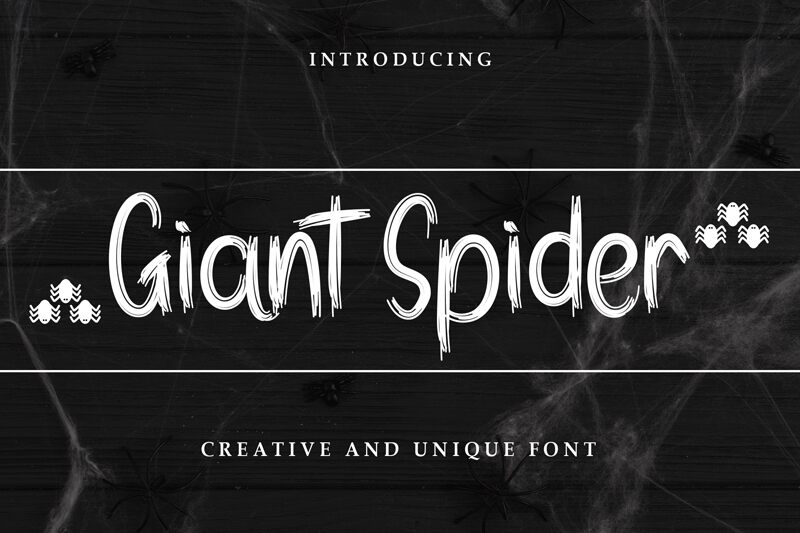
Giant Spider font by Andi Moz brings nightmares to reality with scary letters with imperfections in the form of curves and subtle angled corners. The condensed display font is creepy to its core and is designed to look as though it was created by hand. That gives Giant Spider a strong sense of individuality and an artistic touch that won’t be left unnoticed by the reader.
Horror movies made this free new typeface possible, but the new role it was meant for isn’t as limited. Try it out on book covers, halloween posters and invitations, album covers, or online posts.